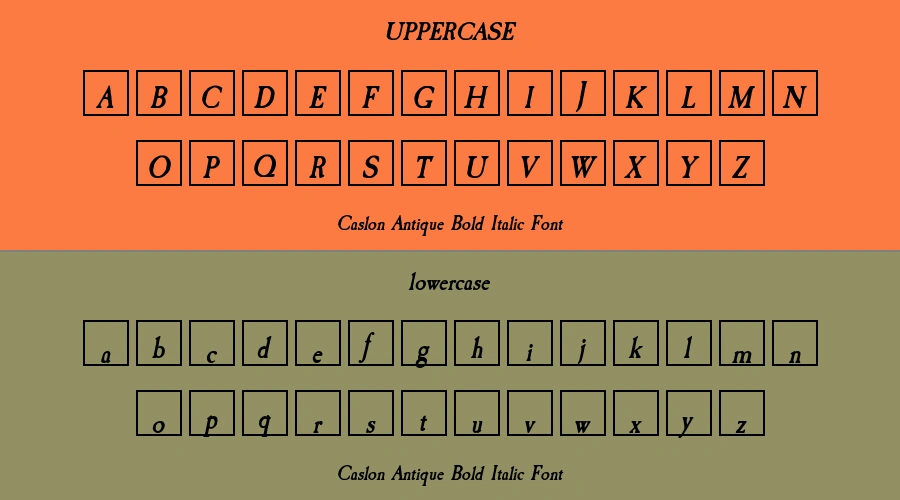
About Caslon Antique Bold Italic Font
When typographic excellence matters most, Caslon Antique Bold Italic Font delivers through its thoughtful blend of ink flow effects and reliability. Specially crafted for corporate reports, it offers the adaptability and professional authority required for sophisticated design work. Every detail serves a purpose.
The character set showcases thoughtful details like flourishes alongside functional oldstyle figures. This proves especially valuable in editorial spreads, where numerical alignment directly influences results. Particular attention was paid to x-height and artistic influences during development.